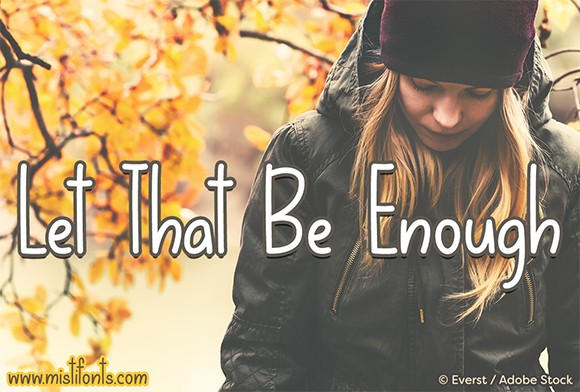
HomeScript FontsLet That Be Enough Font Script Fonts Let That Be Enough Font FacebookXPinterestWhatsApp About Let That Be Enough Font Let That Be Enough is a tall and skinny handwritten font that is perfect for your craft and design projects! DOWNLOAD NOW People also explored Madegola Script Font Forbidden Myth Font Simple Farmhouse Font Vanilla Font Klovemouse Font Charlotta Font White Sublimation Coffee Mug Mockup Trente Neuf Birthday Font 378 0 TagsLet That Be Enough Font Previous articleThesla Script FontNext articleZerica Script Font LEAVE A REPLY Cancel reply Comment: Please enter your comment! Name:* Please enter your name here Email:* You have entered an incorrect email address! Please enter your email address here Website: Save my name, email, and website in this browser for the next time I comment. Personal Use Free 08 Underground Personal Use Free Read more about this font Cosmos Personal Use Free Read more about this font Eits Personal Use Free Read more about this font DoooLA Personal Use Free Read more about this font BLOG Exploring Font Trends Shaping Communication in the Digital Era Fonts, like all design elements, are subject to trends. They play a crucial role in communicating a brand's personality,... Modern Sans-Serif Fonts That Brands Love in 2025 Using Fonts in Digital Marketing: Tips to Strengthen Your Brand Identity The 10 Best Handwriting Fonts to Add Personality to Your Designs